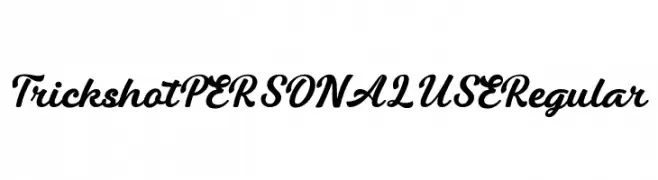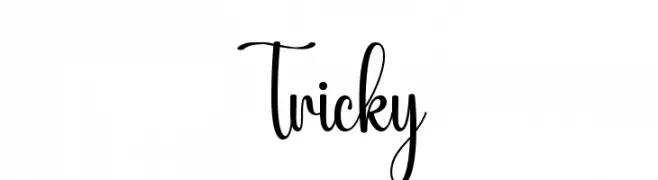
A bold, futuristic font with geometric and edgy design elements.
A modern, geometric outline font with a playful and futuristic style.
A bold, flowing script font with elegant, cursive letterforms.
A bold, rounded font with a playful and friendly style.
A bold, italic font with sharp, angular edges and a dynamic style.
A bold, gothic-style font with sharp serifs and dramatic flair.
A bold, jagged font with a spooky, distressed appearance.
A playful, bold font with rounded, hand-drawn characters.
A playful, whimsical script font with a handwritten style.
Bold cursive script with a handwritten style.